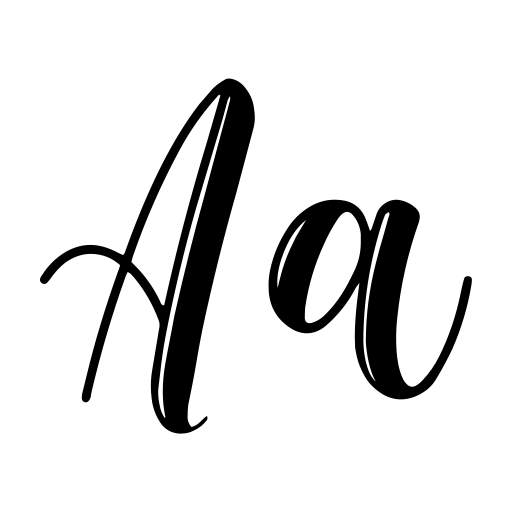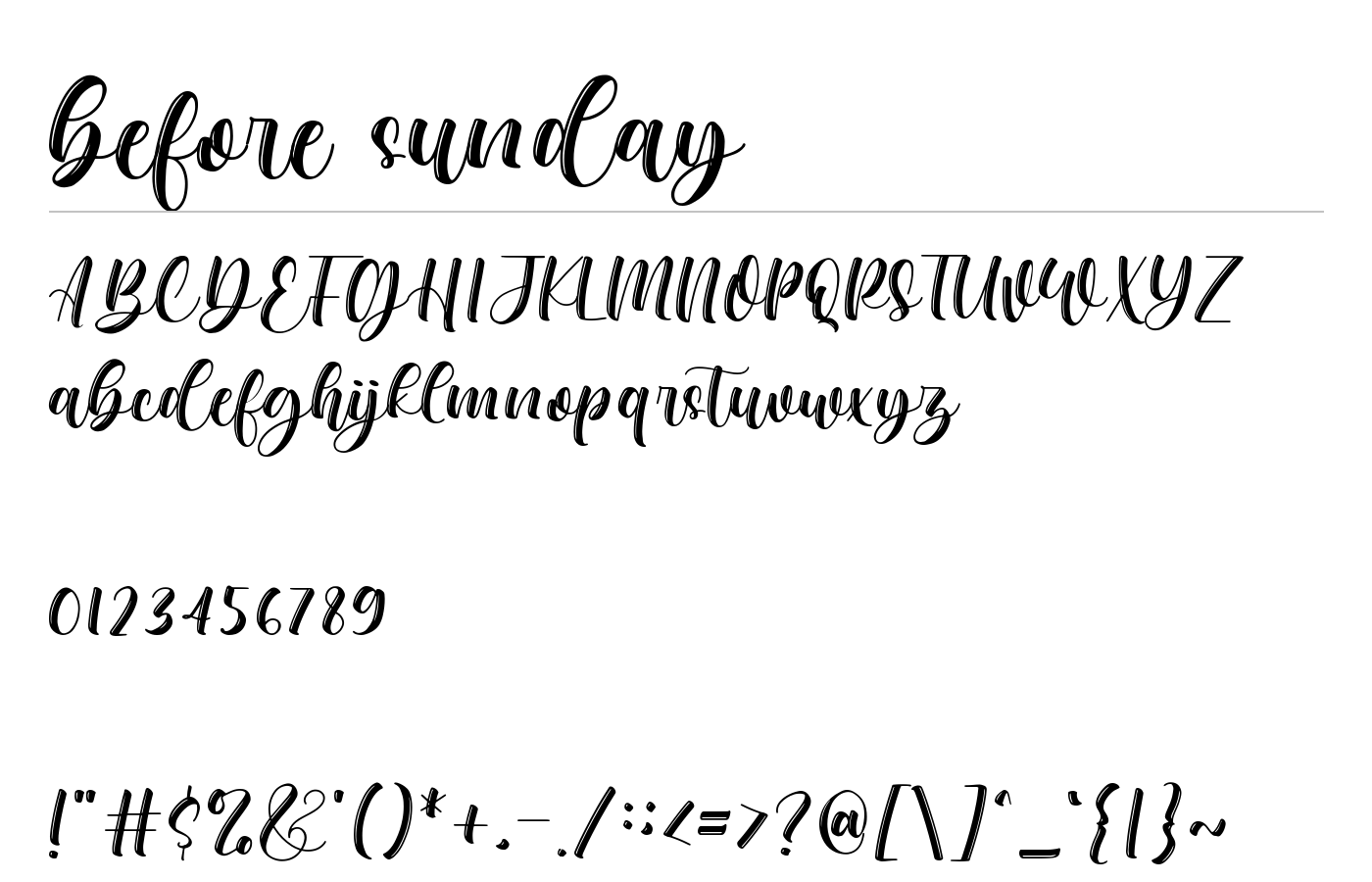
Before Sunday is a graceful, modern script font with a lively and elegant flow, featuring smooth, rounded strokes and a medium weight that brings warmth and charm. Its stylish letterforms and refined curves make it perfect for fashion branding, invitations, and logos that seek a personal, sophisticated touch. This font works beautifully in headlines and decorative text where an inviting, handwritten feel is desired.
before sunday Font
About before sunday Font